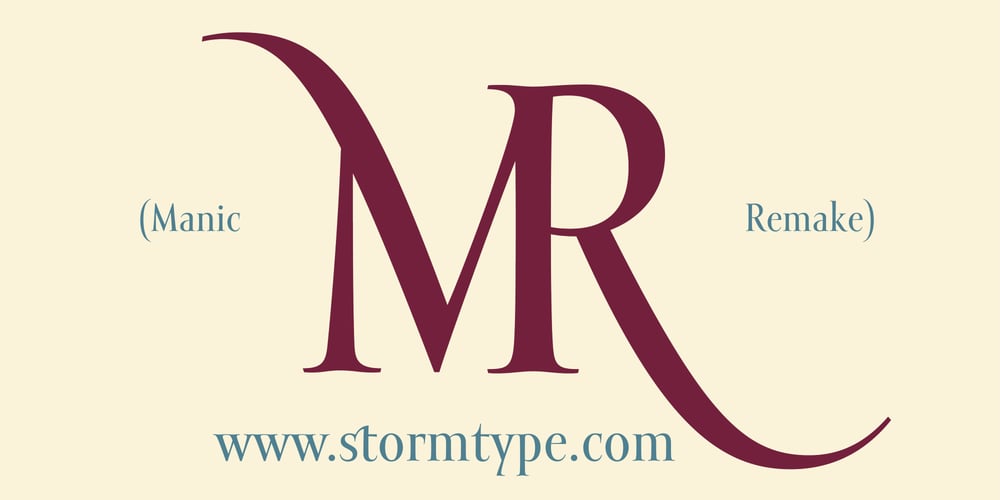
Mramor Pro Font Family was designed by František Štorm and published by Storm Type Foundry. Mramor Pro contains 10 styles and family package options. The Mramor family first appeared in the Stormtype catalogue in 1994. The first sketch arose in 1988 through the narrowing of Roman capitals. It has uniform width proportions and, above all, original lower-case letters, unprecedented with Roman Capitals. The text designs are discontinued since they were replaced by the related Amor Serif family (along with its -sans version). Now, Mramor has “only” 10 designs that each include true small caps, Cyrillics and a rich variety of figures, ligatures and alternates. Mramor excels in corporate identity or bottle-label design, also whenever there is a need for a “classic” looking face.